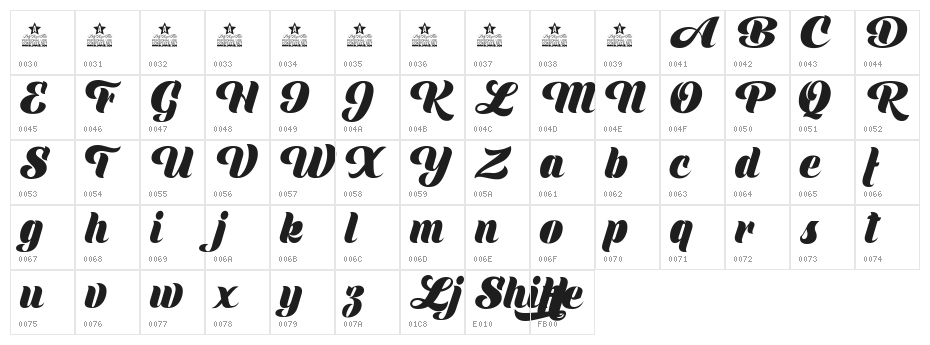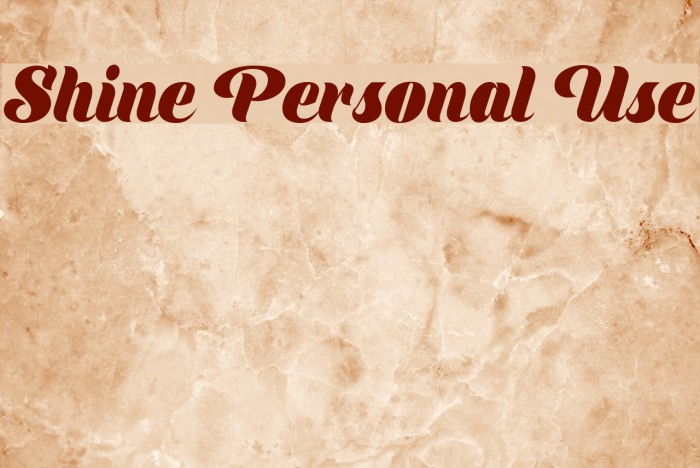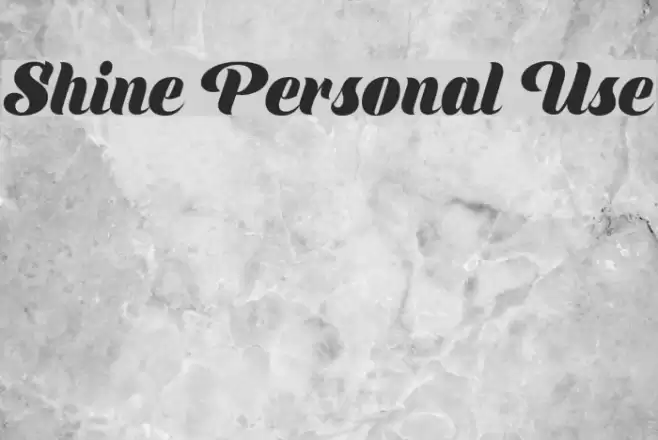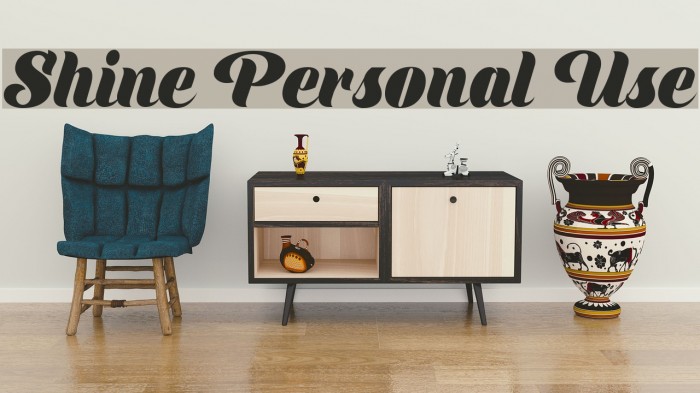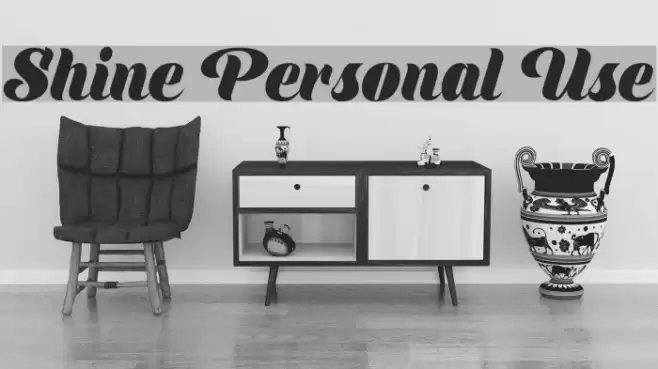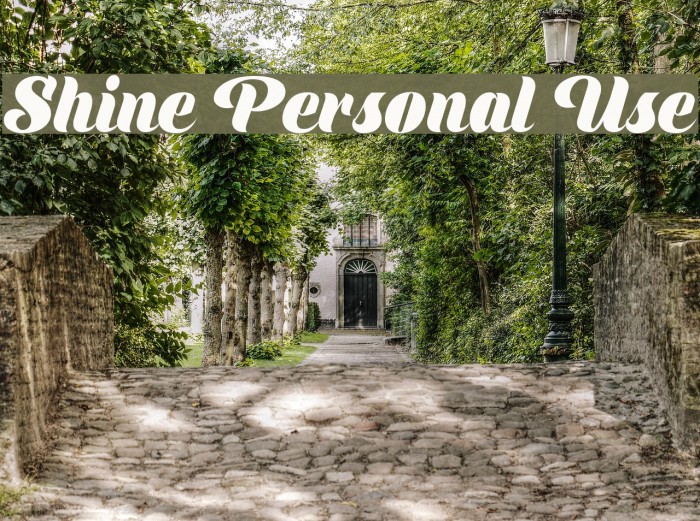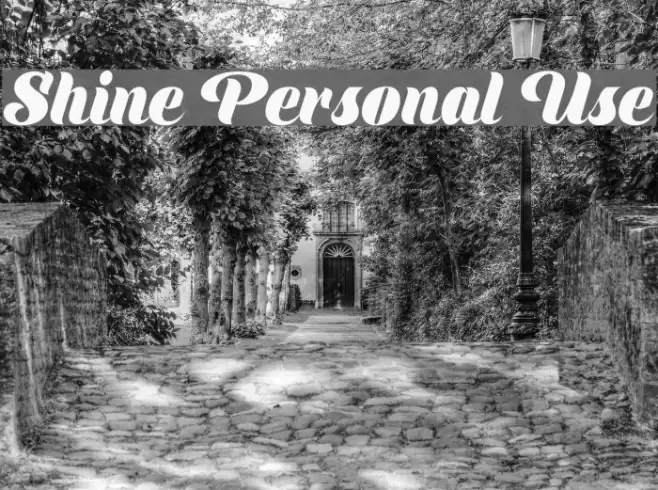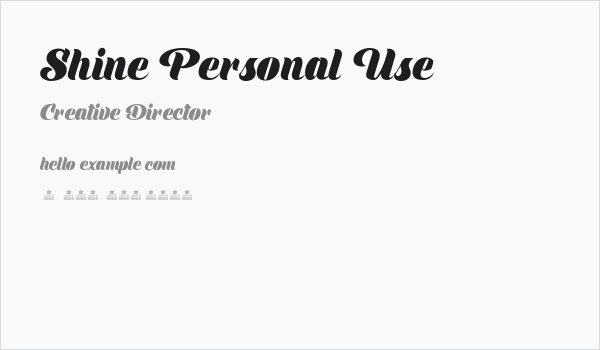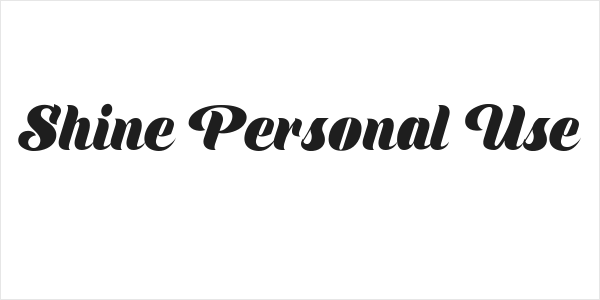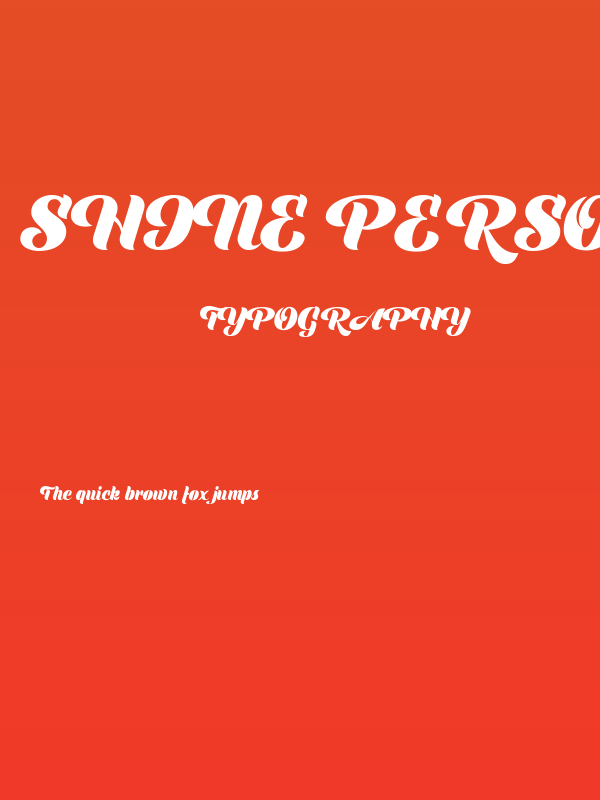
Shine Personal Use Font
Shine Personal Use Description
This font features a bold, flowing script style with a modern flair. The characters are connected in a cursive manner, giving it a dynamic and elegant appearance. The uppercase letters are slightly larger and more pronounced, while the lowercase letters maintain a consistent flow. The numbers and special characters are designed to match the overall aesthetic, ensuring a cohesive look across all text. The strokes are thick, providing a strong visual impact, and the overall design is both stylish and legible.
| Proposed Projects | Ideal for branding, invitations, greeting cards, and logo design where a touch of elegance and modernity is desired. |